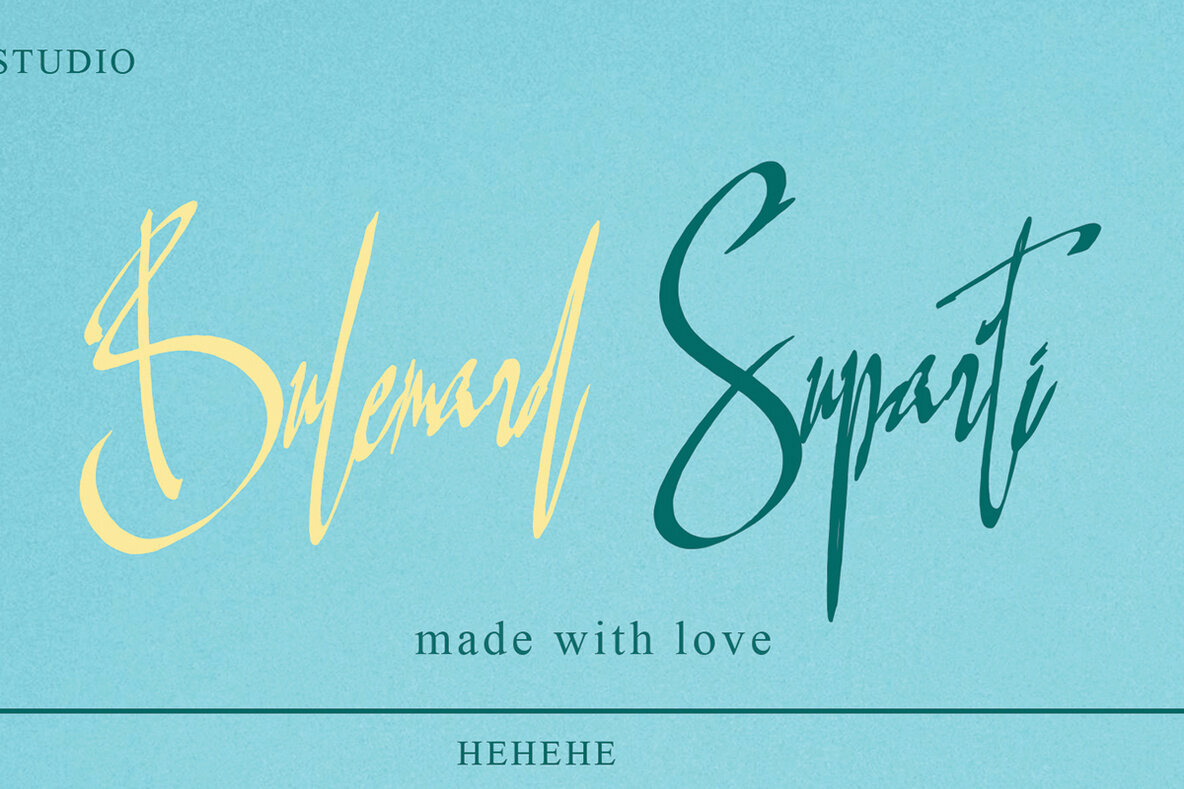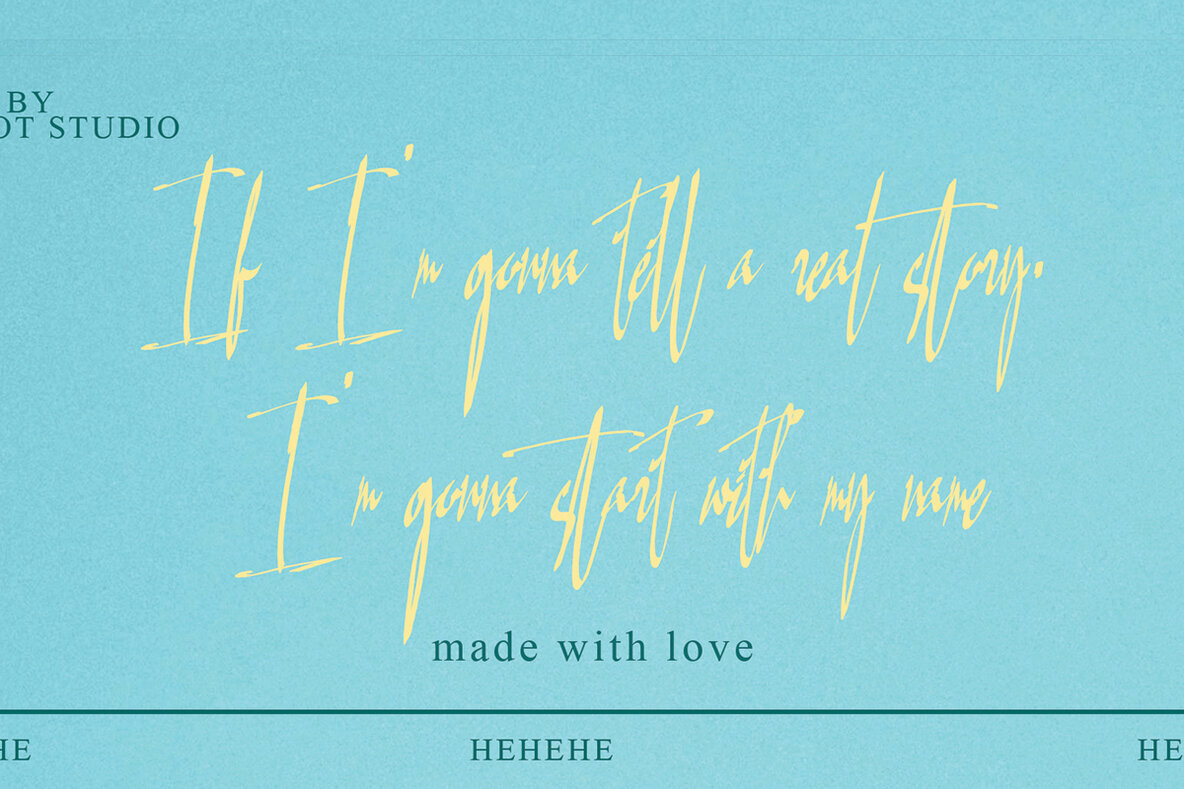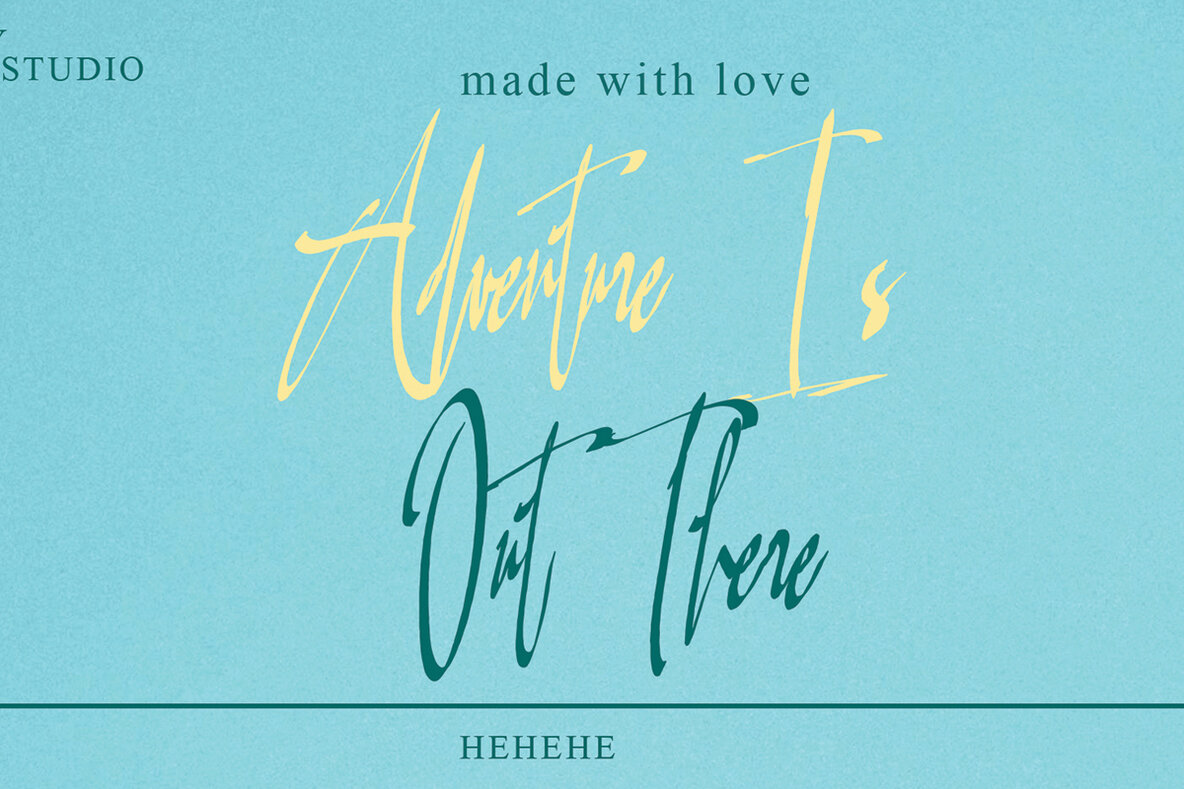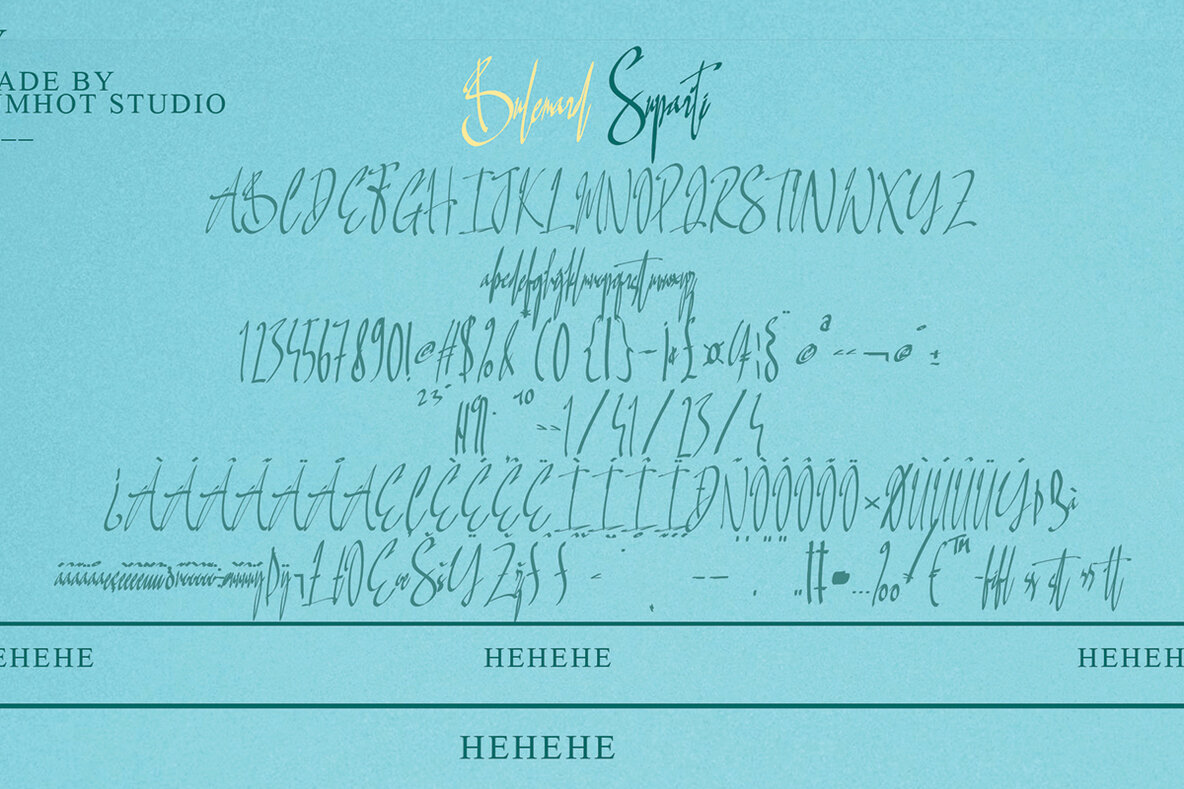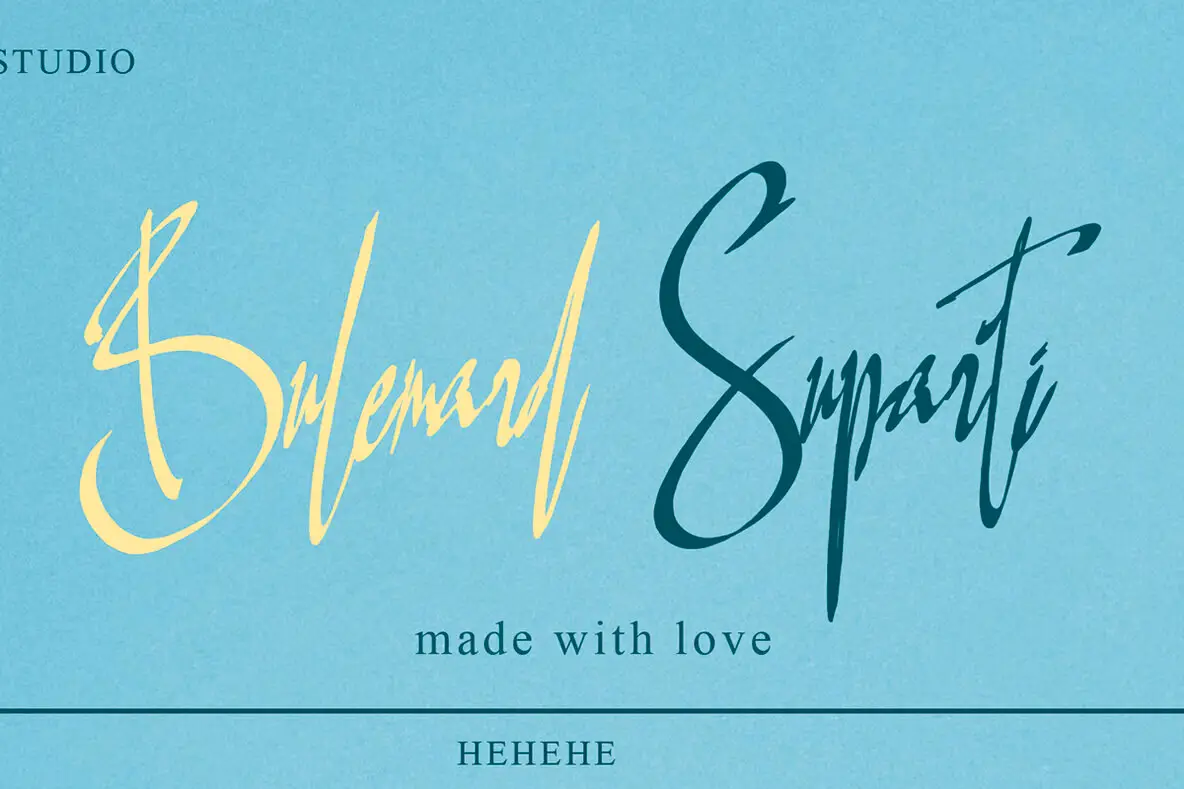
Bulemard Suparti Font
Bulemard Suparti
Bulemard Suparti offers a fresh interpretation of classic serif traditions, merging bold form with subtle elegance. Well-suited for branding, editorial layouts, or standout headlines, this display font brings refined personality to both digital and print environments. Its unique letterforms and balanced proportions deliver visual interest without overwhelming the core message, making it a valuable asset for designers seeking character and clarity.Bulemard Suparti: A Distinct Display Serif for Impactful Design